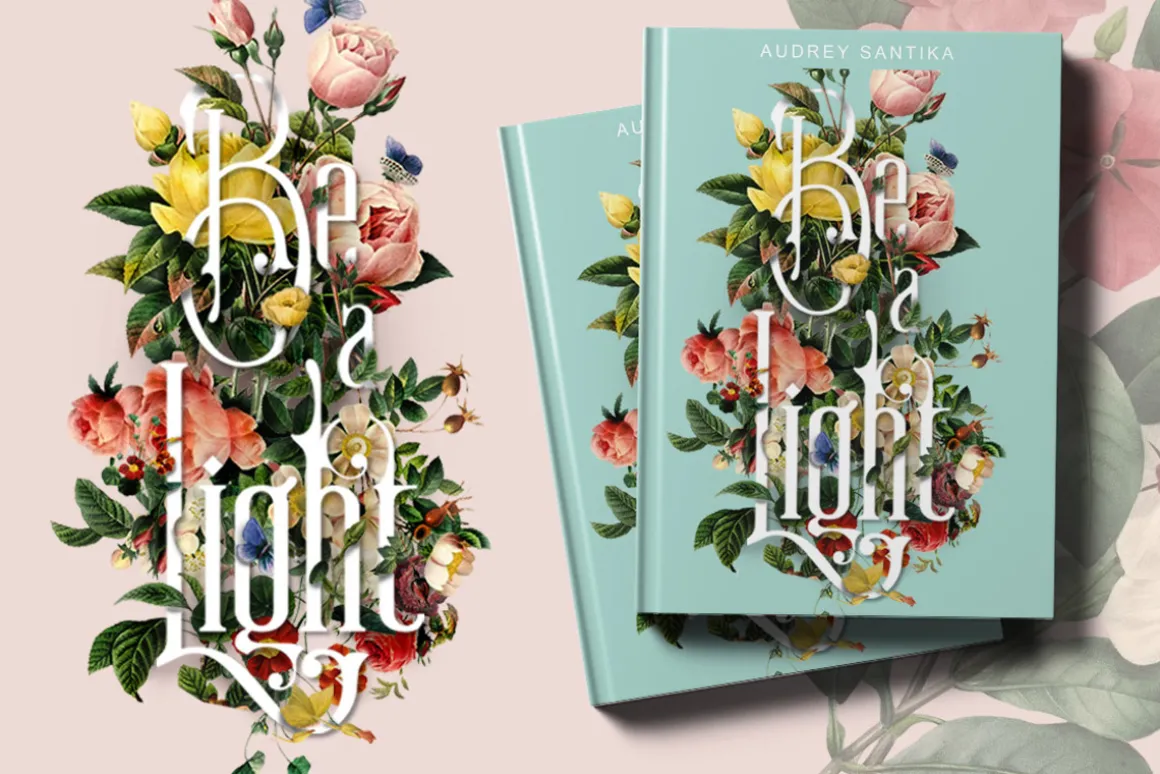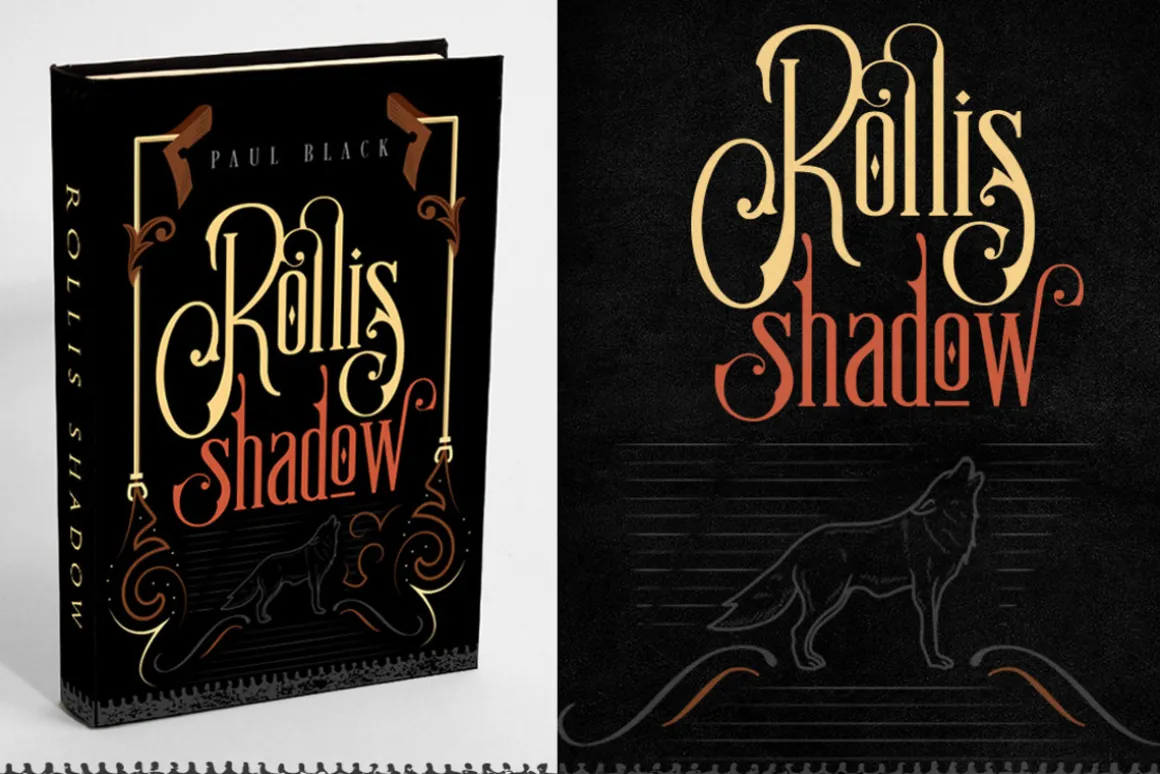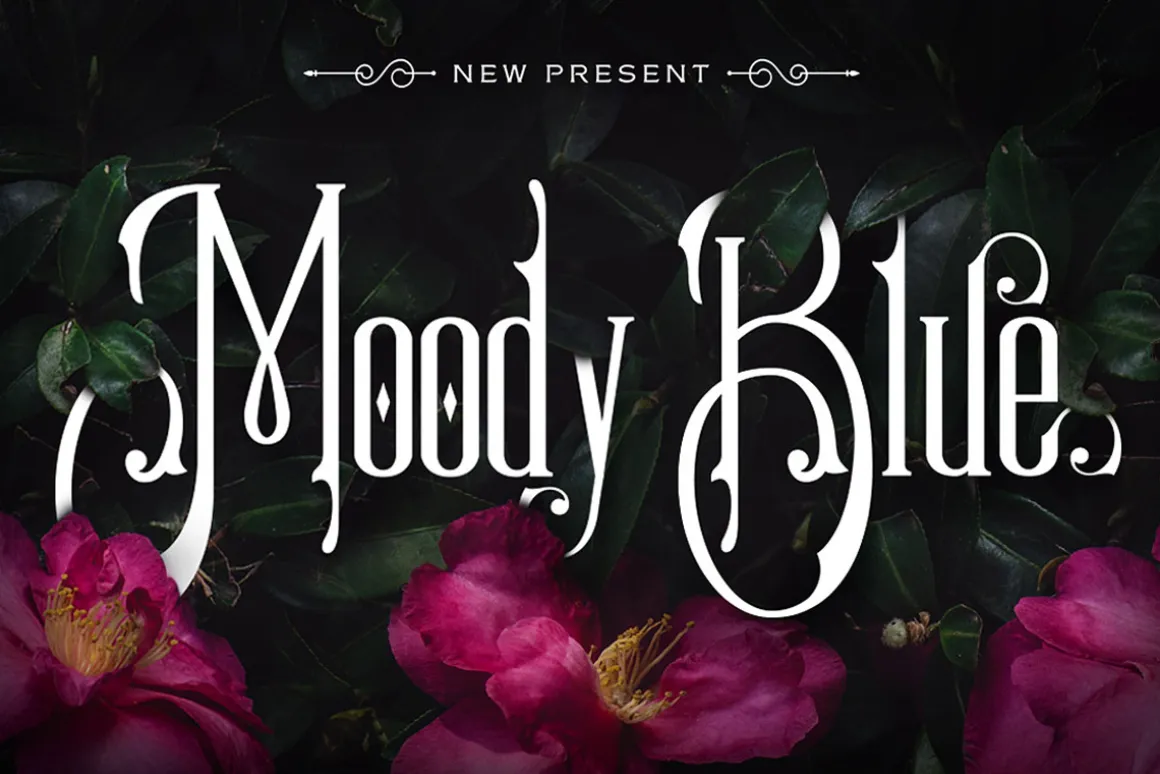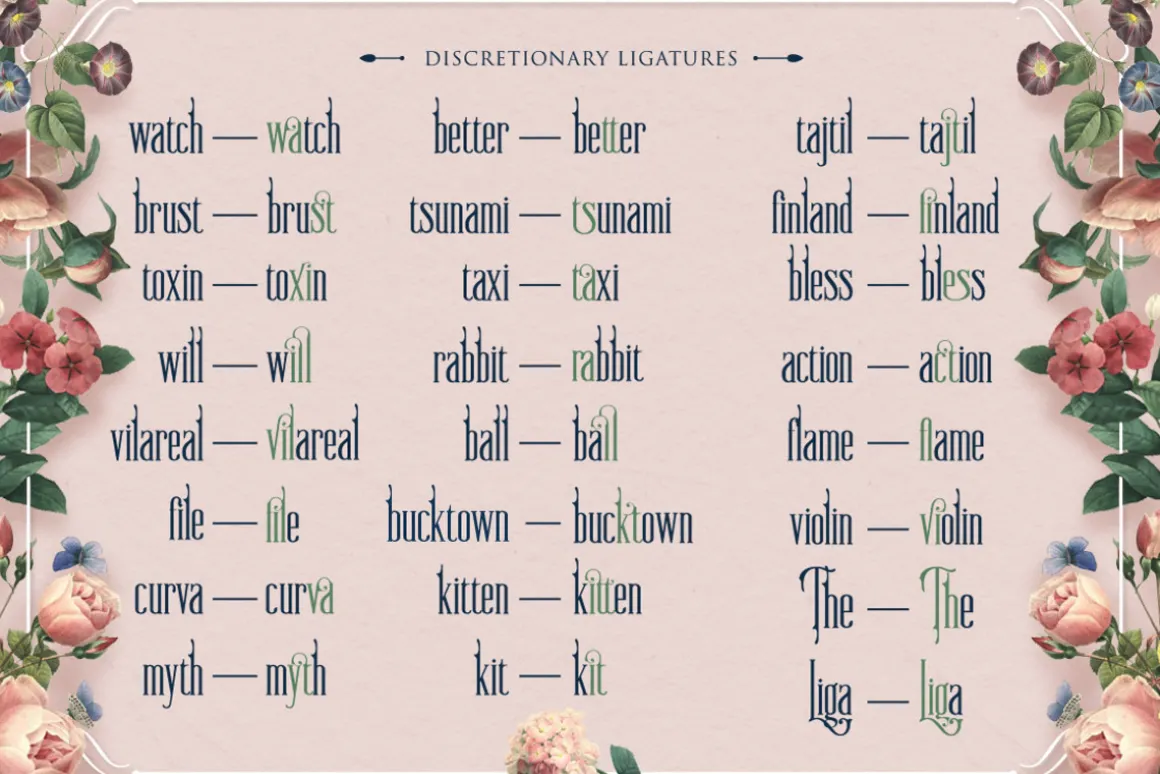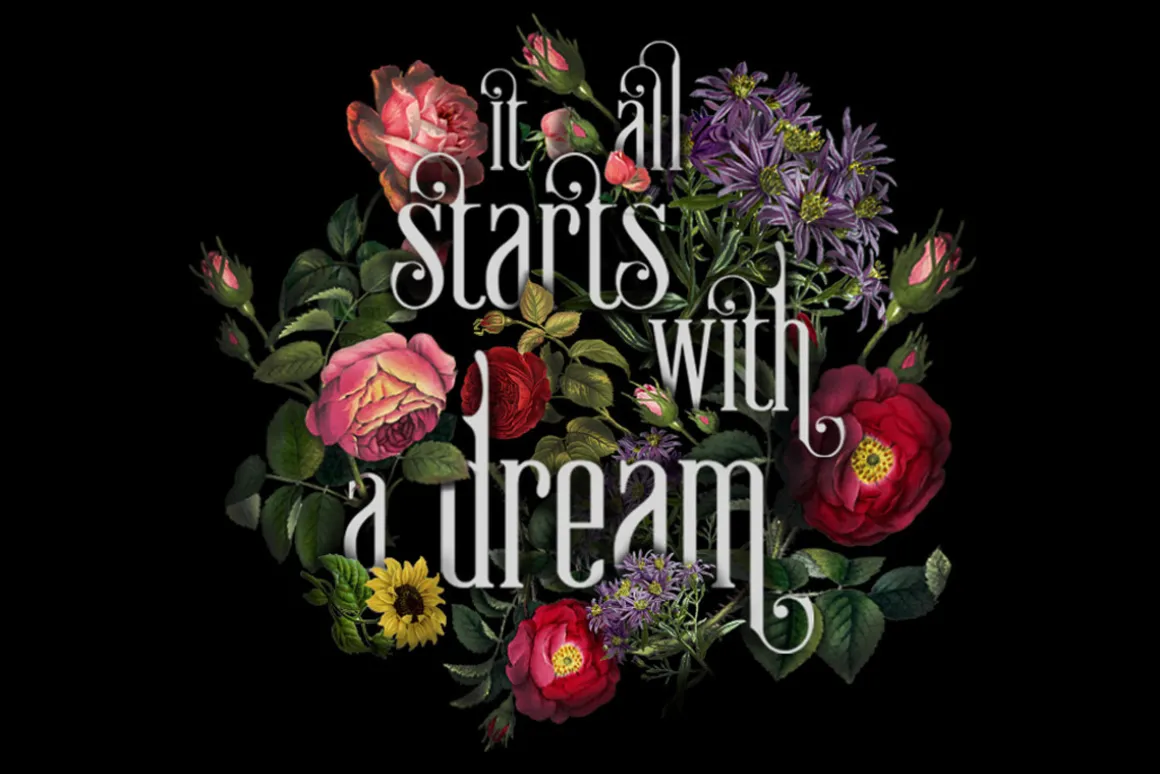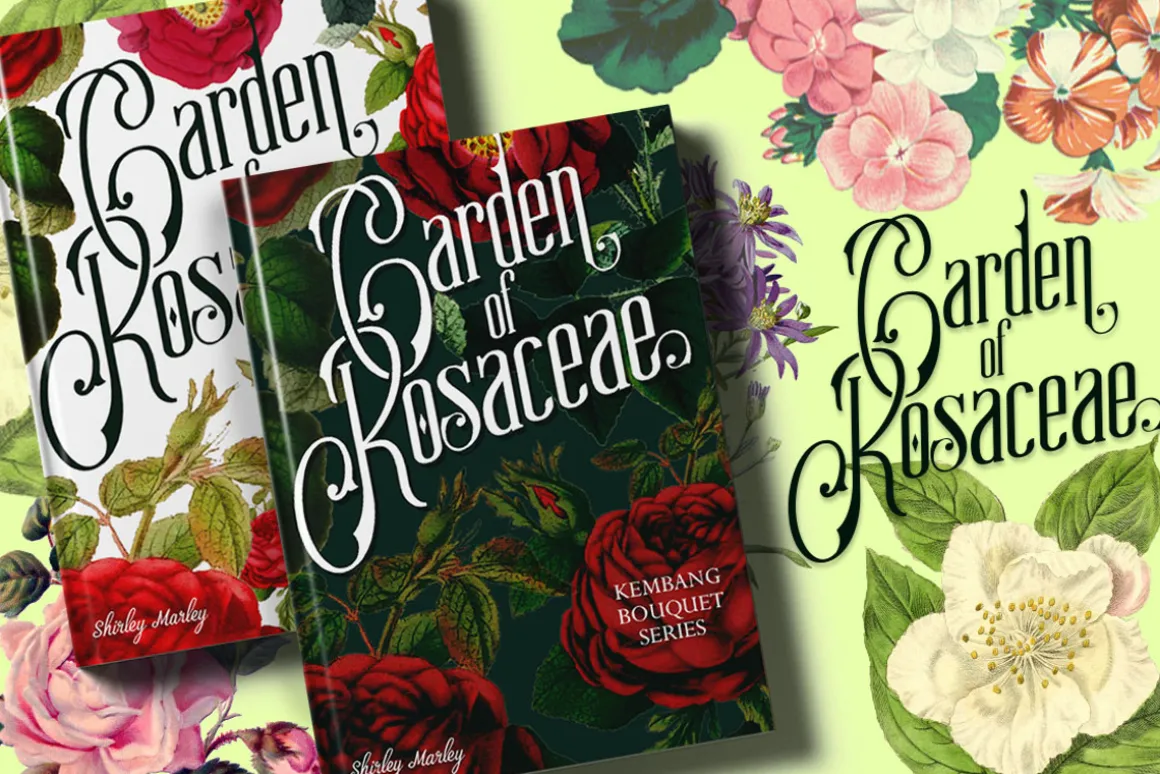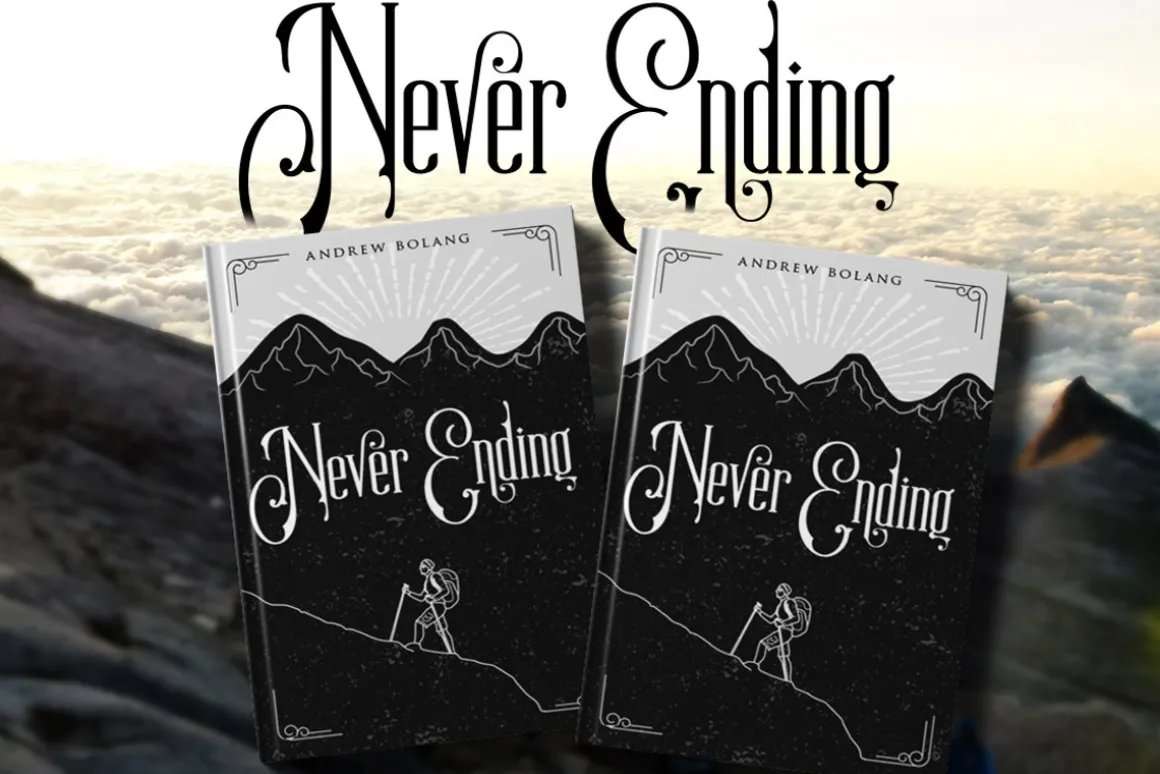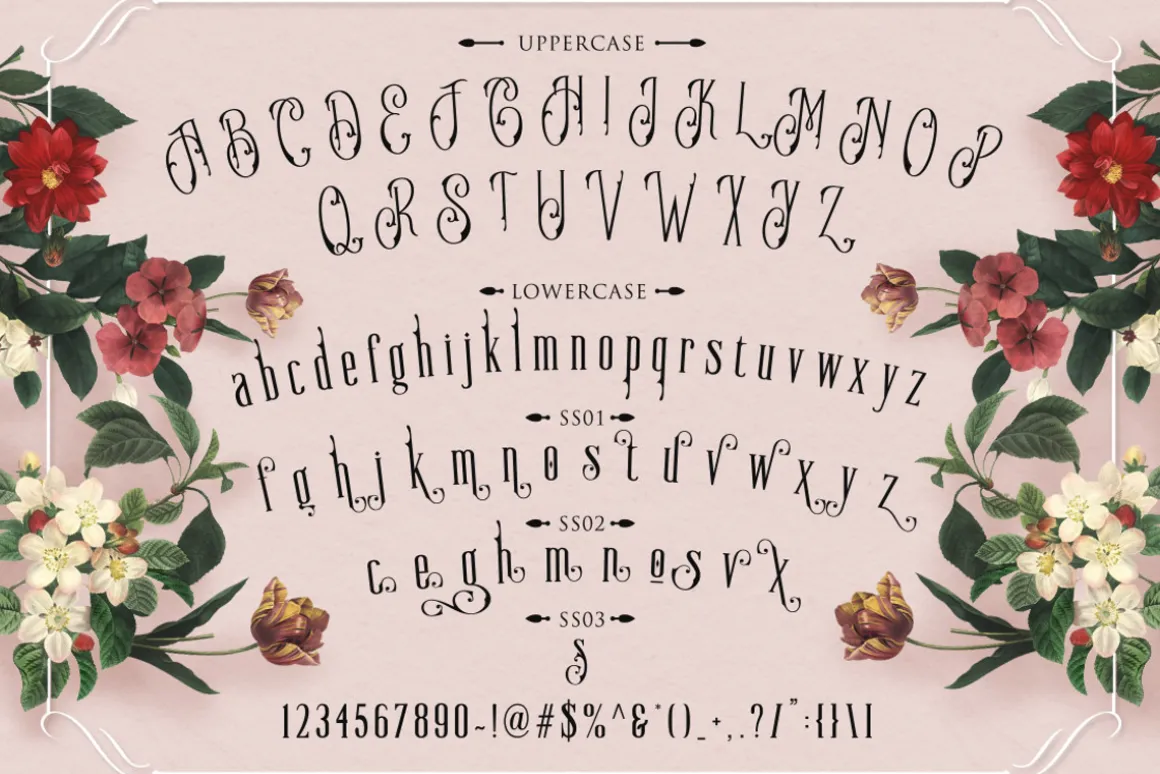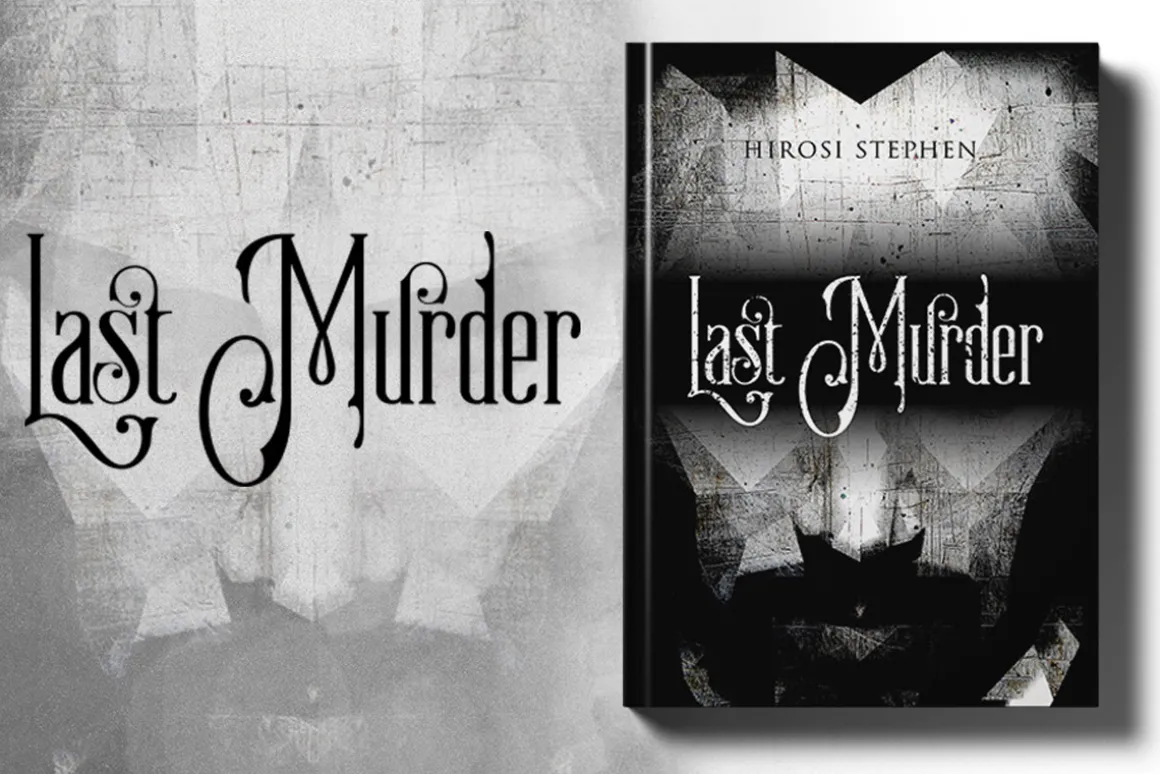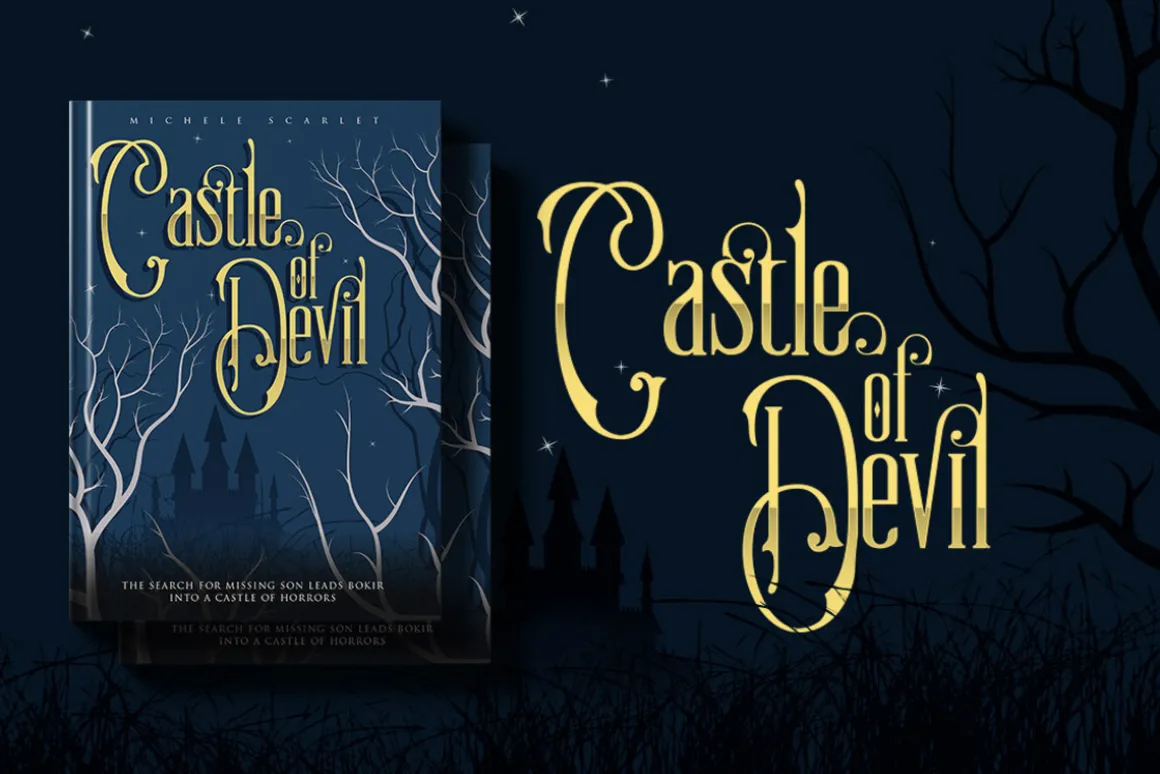
Introducing new classic display typeface it’s call Moody Blue.
Moody Blue typeface Inspired by Classic typografi design, vintage art, cover book and novel. OpenType features some characters that allows you to mix and match pairs of letters to fit in your designs. To access the alternat glyphs, you need a program that supports OpenType features such as Adobe Illustrator CS and Adobe Indesign
No matter how is your design concept to looking serious. it can be FUN , scary, mystical, chilling, dark or light. With MOODY BLUE typeface, your design will more quieter, relax, enjoy, etc.
You can use this font for various purposes.such as book cover, product packaging, labeling, logo, classic shop, badges, movie title, t-shirt, wedding invitation, posters, lable, greeting card, letterhead,logo, Titles Branding, etc.
Open Type featuring
- Discretionary Ligatures
- Stylistic Alternates